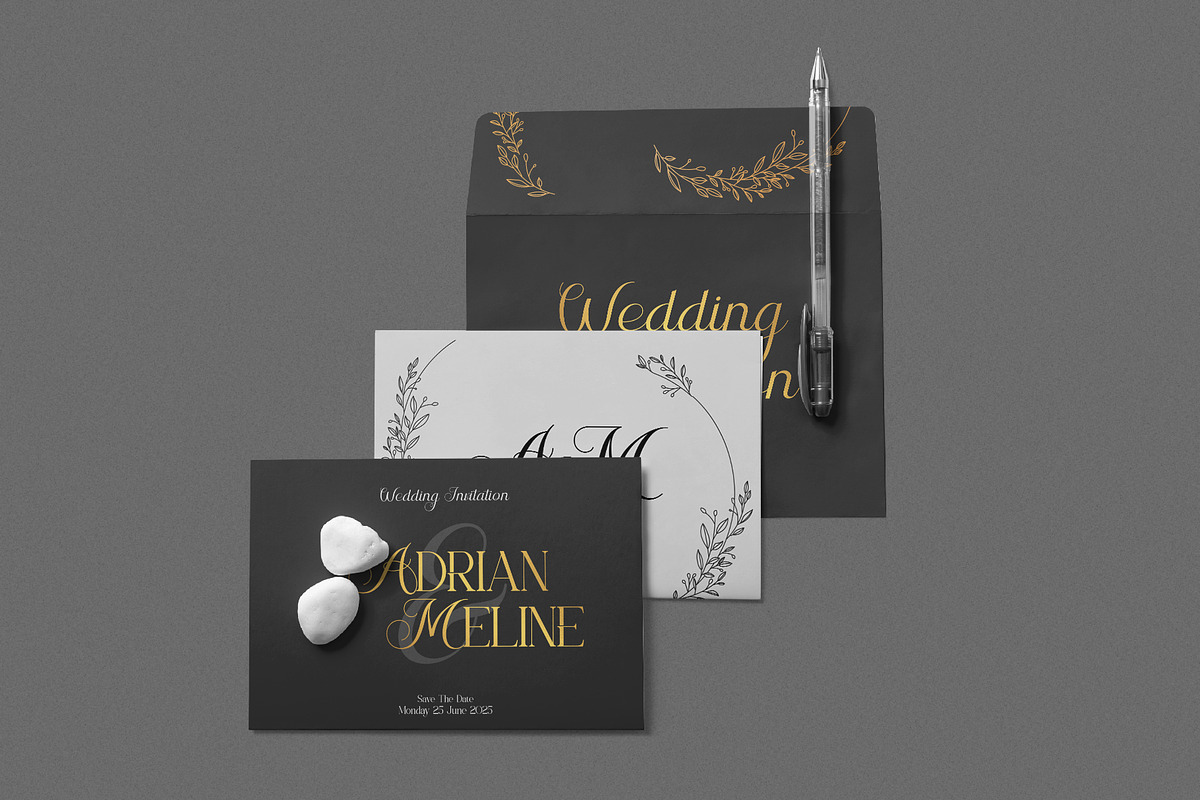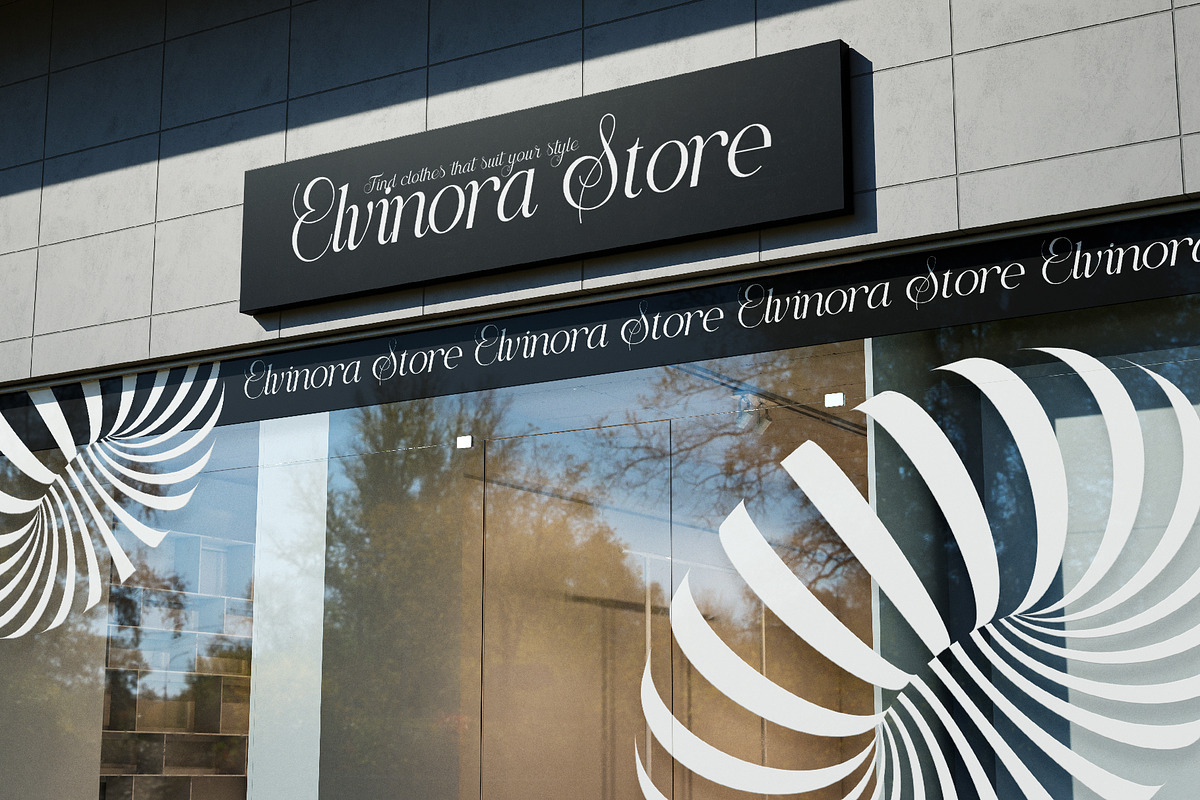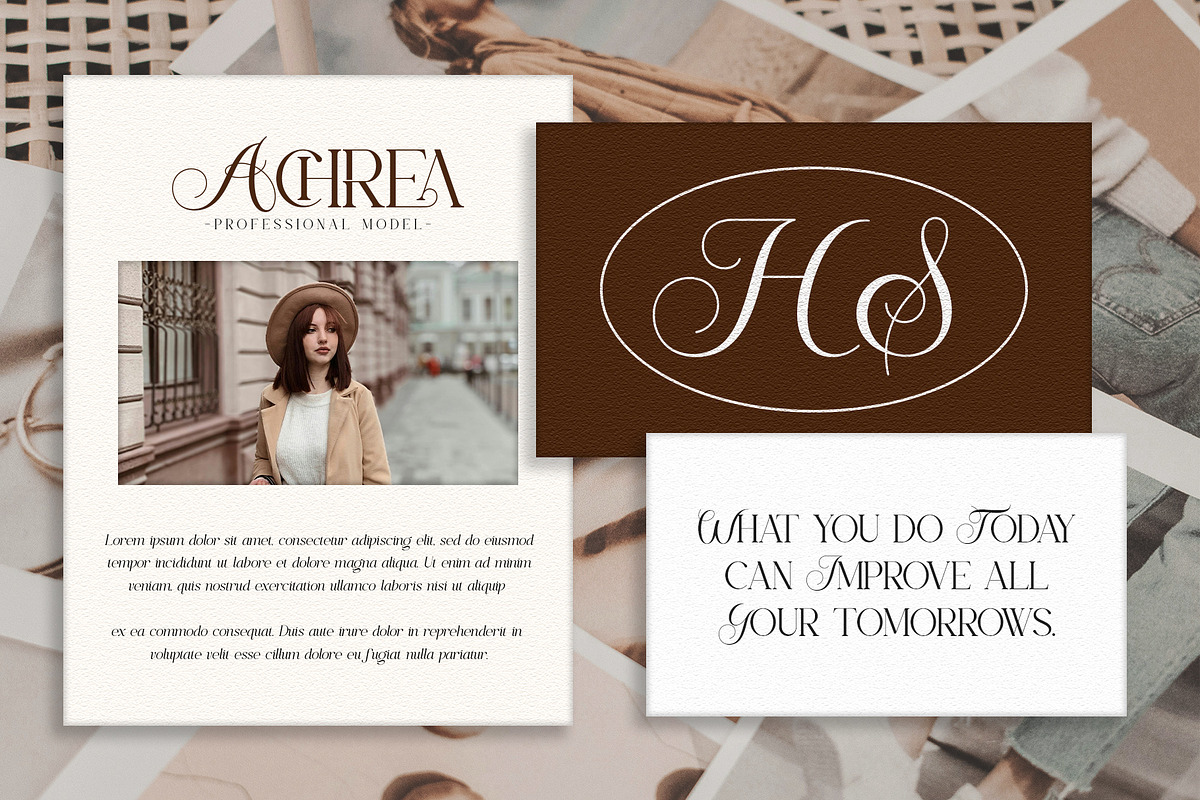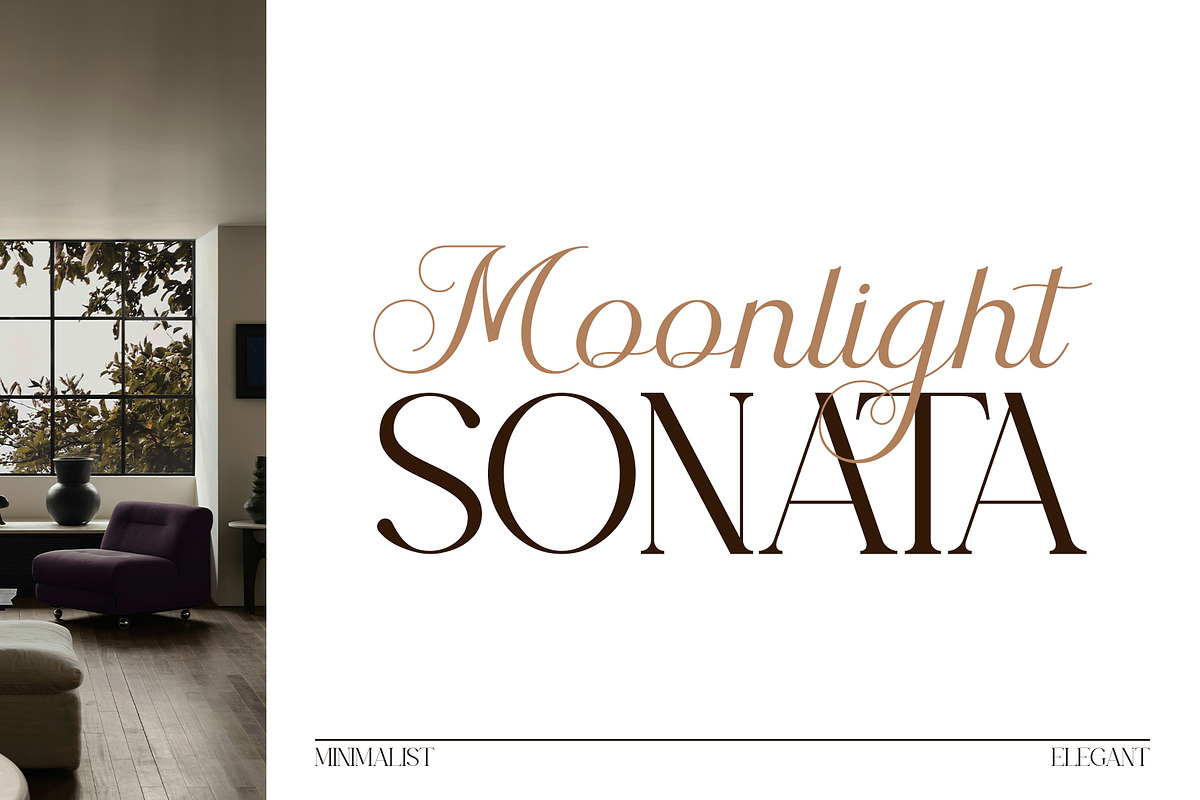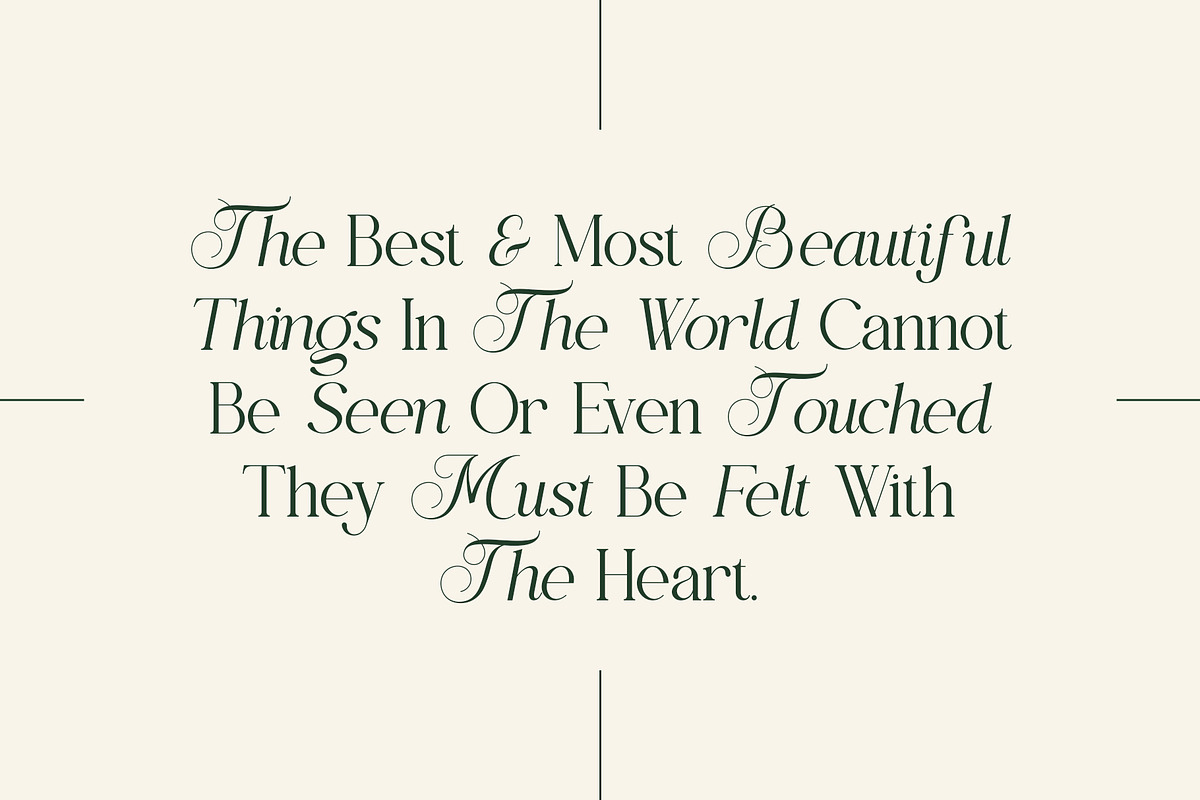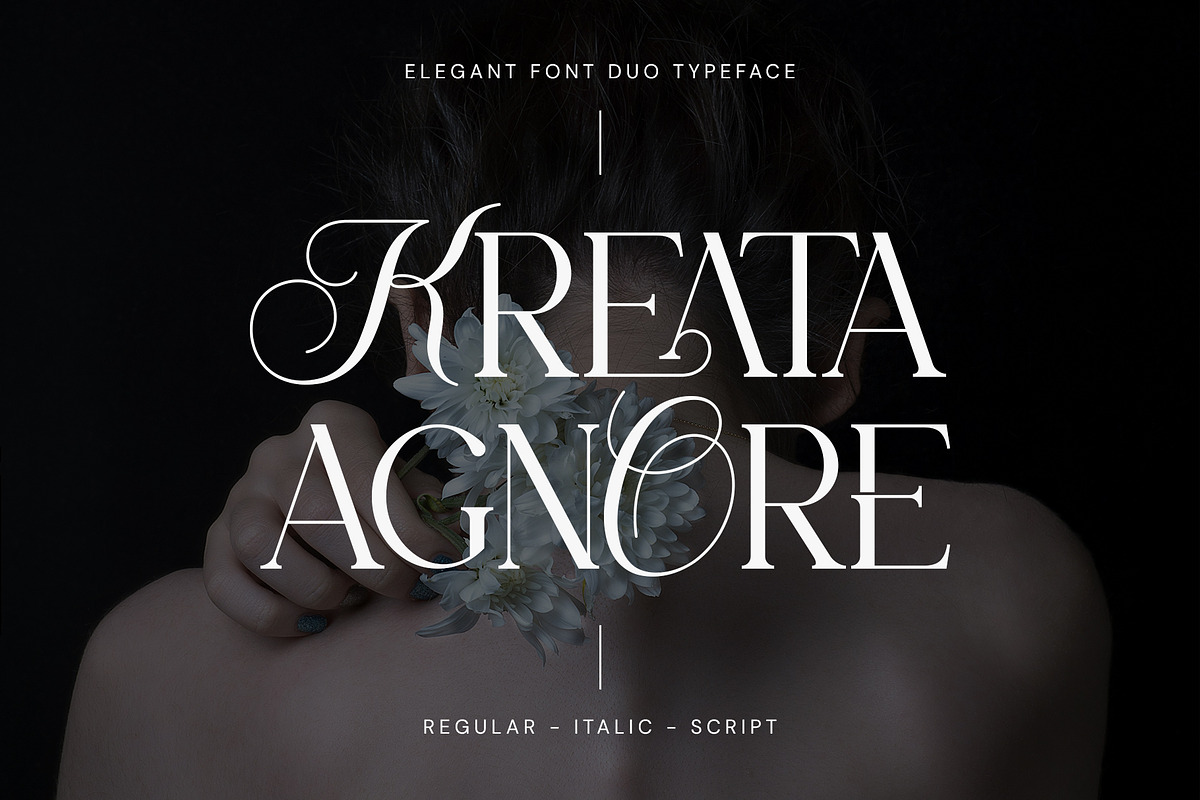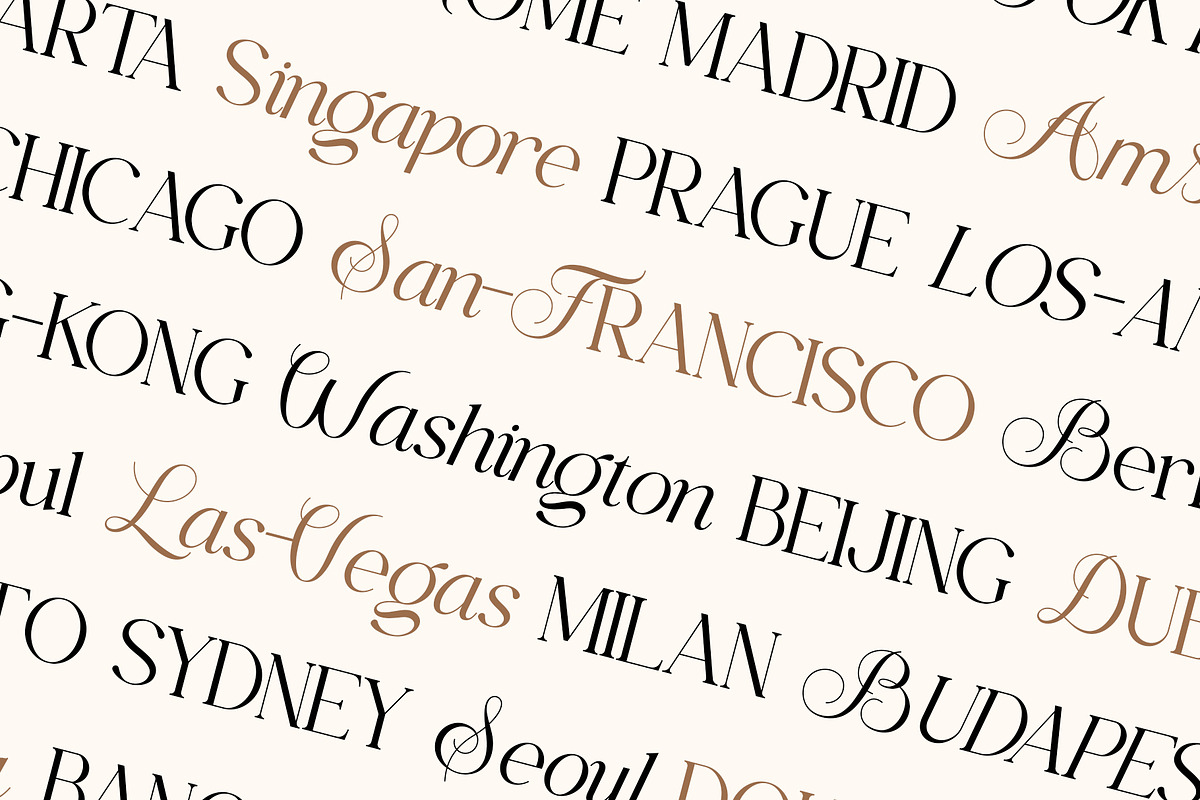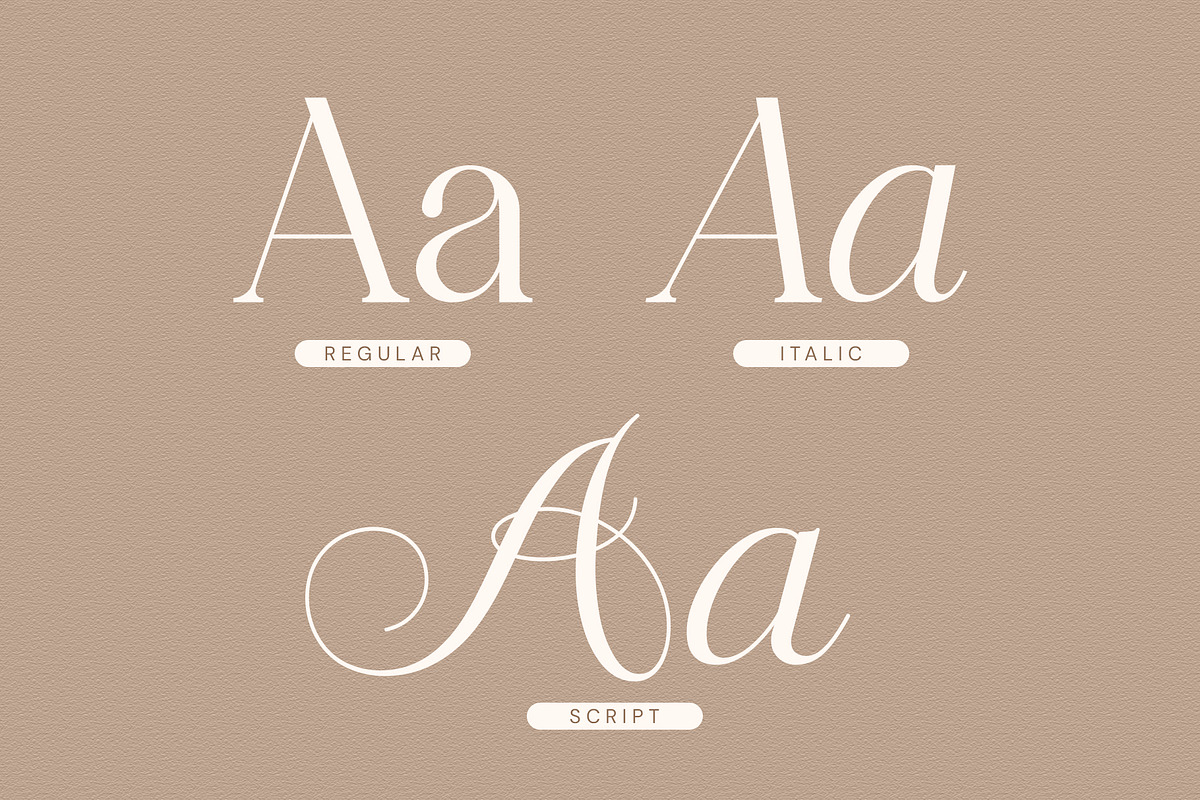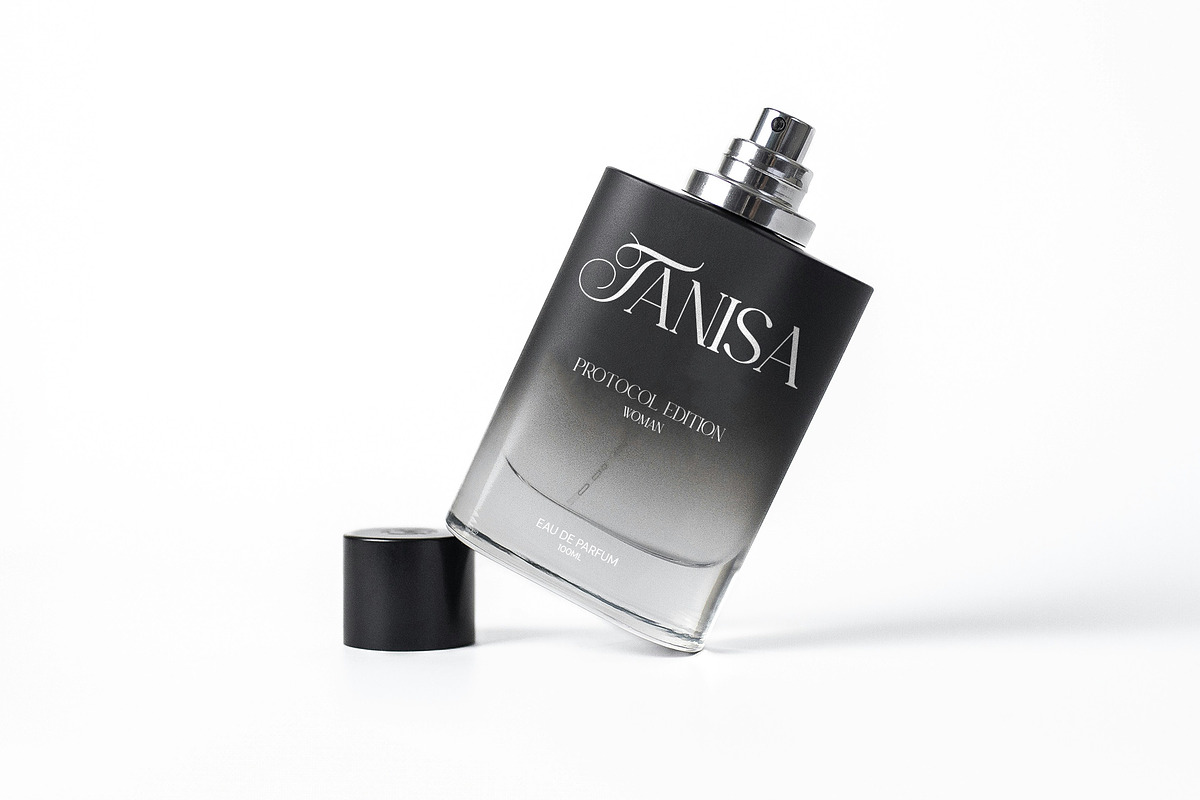
Kreata Agnore - Font Duo
Kreata Agnore is a completely new typeface, unique, classy and modern. These fonts include regular, italic and script serif fonts best used for titles, logos, branding, magazines, product packaging and invitations. Its stylish turns and ties with clean lines and smooth curves add an extra touch of class to any project. make this font the perfect partner for any project.